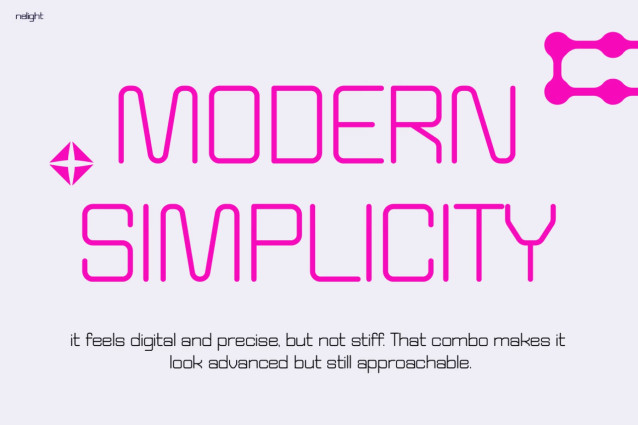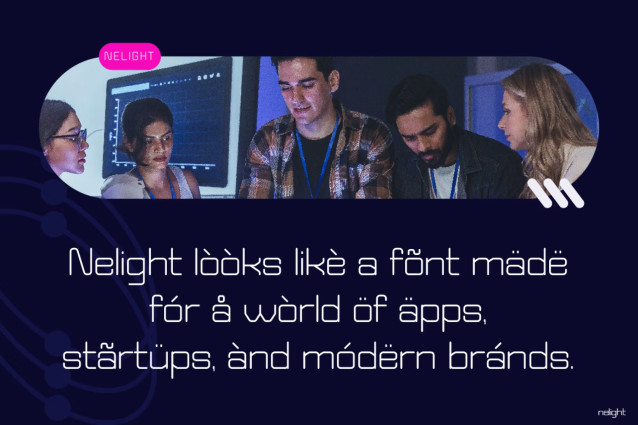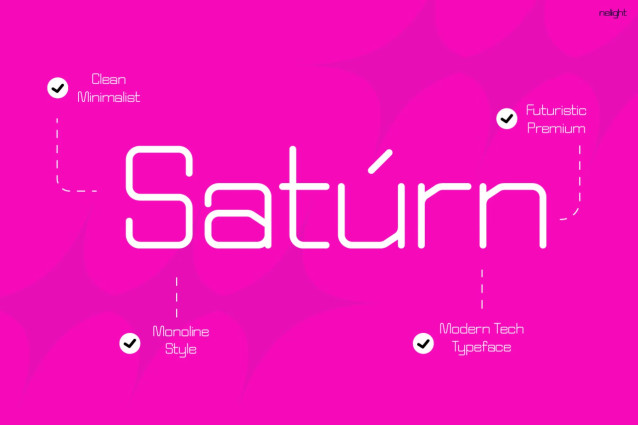
Nelight is a sleek, futuristic display sans-serif font designed with a clean monoline structure and soft, rounded corners. Its geometric letterforms feature subtle digital-inspired cuts and open terminals, giving it an advanced, high-tech aesthetic that remains approachable and friendly.
Best suited to modern tech branding, startup identities, app interfaces, game titles, and digital product packaging. Use it for sci-fi book covers, futuristic posters, website headlines, and social media graphics where a clean, forward-thinking tone is needed.